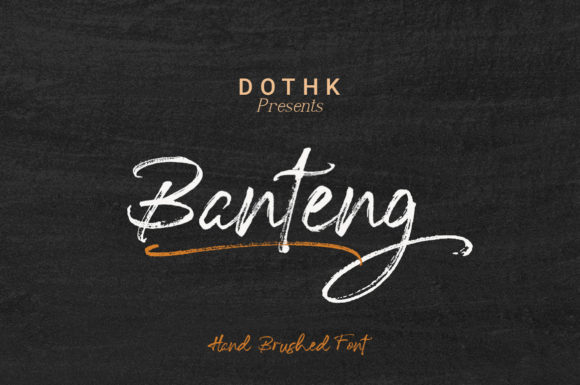
Behold, the Banteng font, a mesmerizing symphony of flowing lines and elegant curves, crafted with the utmost care by the visionary artist, Arief.hk. This extraordinary script font possesses a captivating vintage charm, evoking an era of timeless allure and sophistication.
Step into a realm of boundless creativity with Banteng, a font that seamlessly blends the aesthetics of the past with a refreshing modern twist. Its meticulously crafted strokes exude an effortless grace, adding a touch of refined elegance to any design project. From enchanting wedding invitations to vintage-inspired logos, Banteng effortlessly captures the essence of bygone eras, transporting you to a world of nostalgic beauty.
Unleash your inner artist and let Banteng become your muse. Effortlessly create designs that resonate with a sense of history and timeless appeal. With Banteng, you'll find yourself immersed in a world of creative possibilities, where your imagination knows no bounds.
But Banteng is more than just a font; it's an experience. Its enchanting aura captivates and draws you into a world of nostalgia and wonder. As you type each word, you'll feel the weight of history in your fingertips, inspiring you to create designs that stand the test of time.